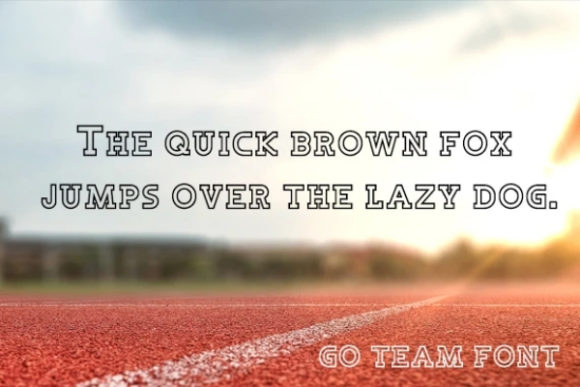
Introducing Go Team Font: The Ultimate Choice for Sports-Themed Designs
Are you looking for a font that can add a touch of excitement and energy to your sports-related projects? Look no further than Go Team Font! This fantastic display font is perfect for designers and crafters who want to create stunning visuals that capture the spirit of competition and teamwork.
What Makes Go Team Font So Great?
Go Team Font is a great display font that is specifically designed to make a statement. Its bold and dynamic design makes it perfect for any sports-related project, whether you’re creating a logo, poster, or social media graphic. The font’s versatility ensures that it will look outstanding in any context, whether it’s being used on busy backgrounds or as a standalone headline.
Key Features of Go Team Font
- Bold and Dynamic Design: Go Team Font features a bold and dynamic design that is sure to grab attention.
- Versatile: The font is perfect for use on busy backgrounds or as a standalone headline.
- Sports-Themed: The font is specifically designed for sports-related projects, making it perfect for designers and crafters who want to create sports-themed designs.
- Easily Readable: Despite its bold design, Go Team Font is easily readable, making it perfect for use in a variety of contexts.
Why Choose Go Team Font?
There are many reasons why Go Team Font is the ultimate choice for sports-themed designs. Here are just a few:
- Unique Design: Go Team Font features a unique design that sets it apart from other fonts.
- High-Quality: The font is of high quality, ensuring that it will look great in any context.
- Easy to Use: Go Team Font is easy to use, making it perfect for designers and crafters of all skill levels.
- Versatile: The font is versatile, making it perfect for use in a variety of contexts.
How to Use Go Team Font
Go Team Font is easy to use and can be incorporated into a variety of designs. Here are a few ideas:
- Logos: Use Go Team Font to create a bold and dynamic logo for your sports team or sports-related business.
- Posters: Use the font to create eye-catching posters for sports events or promotions.
- Social Media Graphics: Use Go Team Font to create stunning social media graphics that capture the spirit of competition and teamwork.
- T-Shirts and Merchandise: Use the font to create bold and dynamic designs for t-shirts and other merchandise.
Tips and Tricks for Using Go Team Font
Here are a few tips and tricks for using Go Team Font:
- Use it Boldly: Go Team Font is designed to be used boldly, so don’t be afraid to make it big and bold.
- Experiment with Colors: The font looks great in a variety of colors, so experiment with different colors to find the one that works best for your design.
- Pair it with Other Fonts: Go Team Font pairs well with other fonts, so consider pairing it with a simpler font to create visual interest.
Go Team Font is a great display font that is perfect for any sports-related project. Its bold and dynamic design makes it perfect for use on busy backgrounds or as a standalone headline. With its versatility, high-quality design, and ease of use, Go Team Font is the ultimate choice for designers and crafters who want to create stunning sports-themed designs.